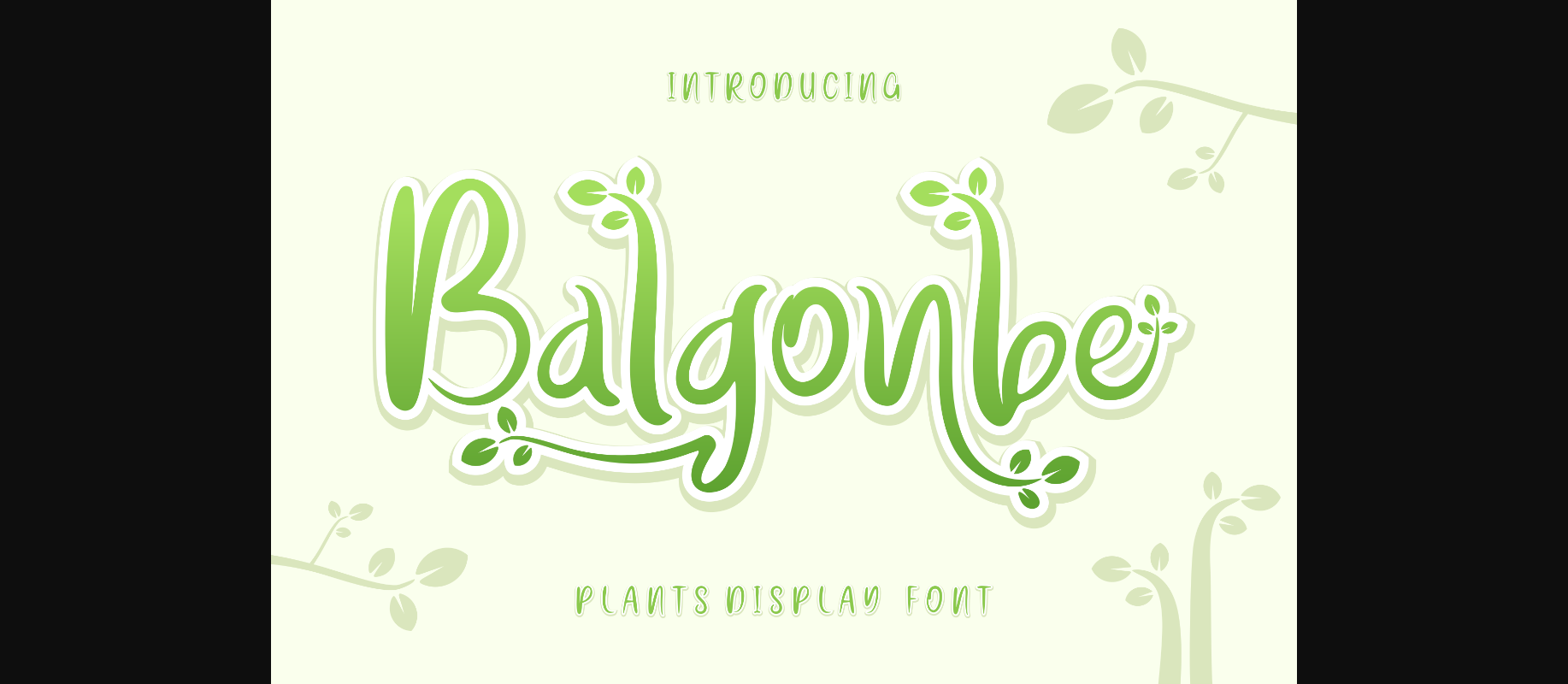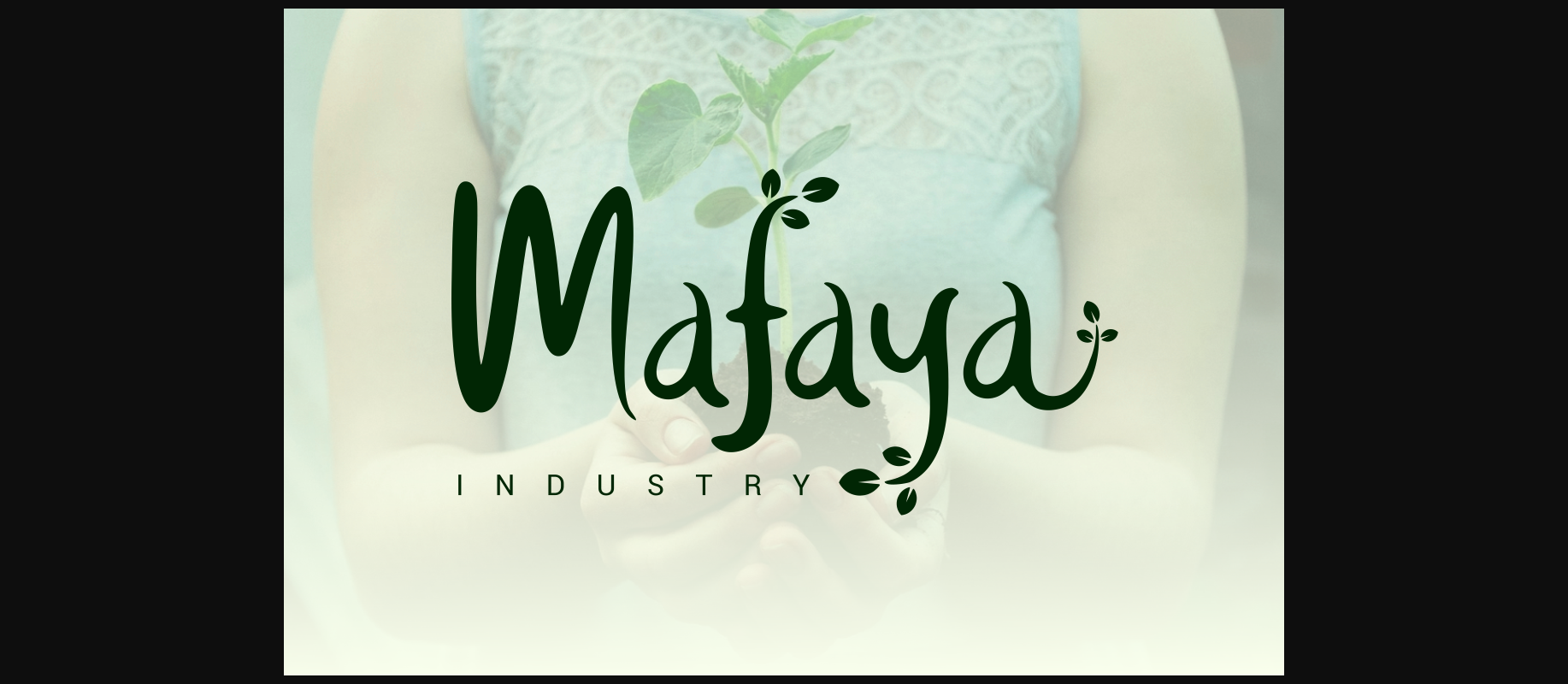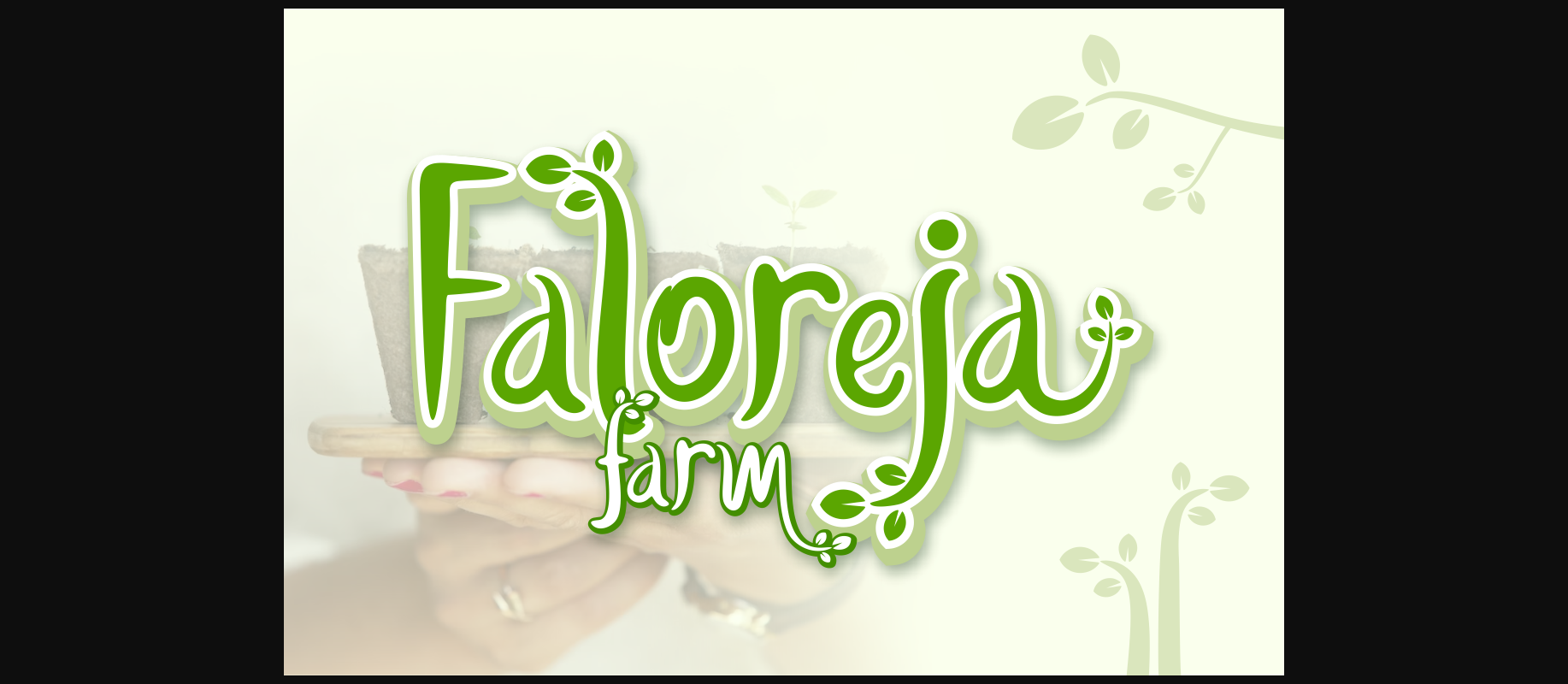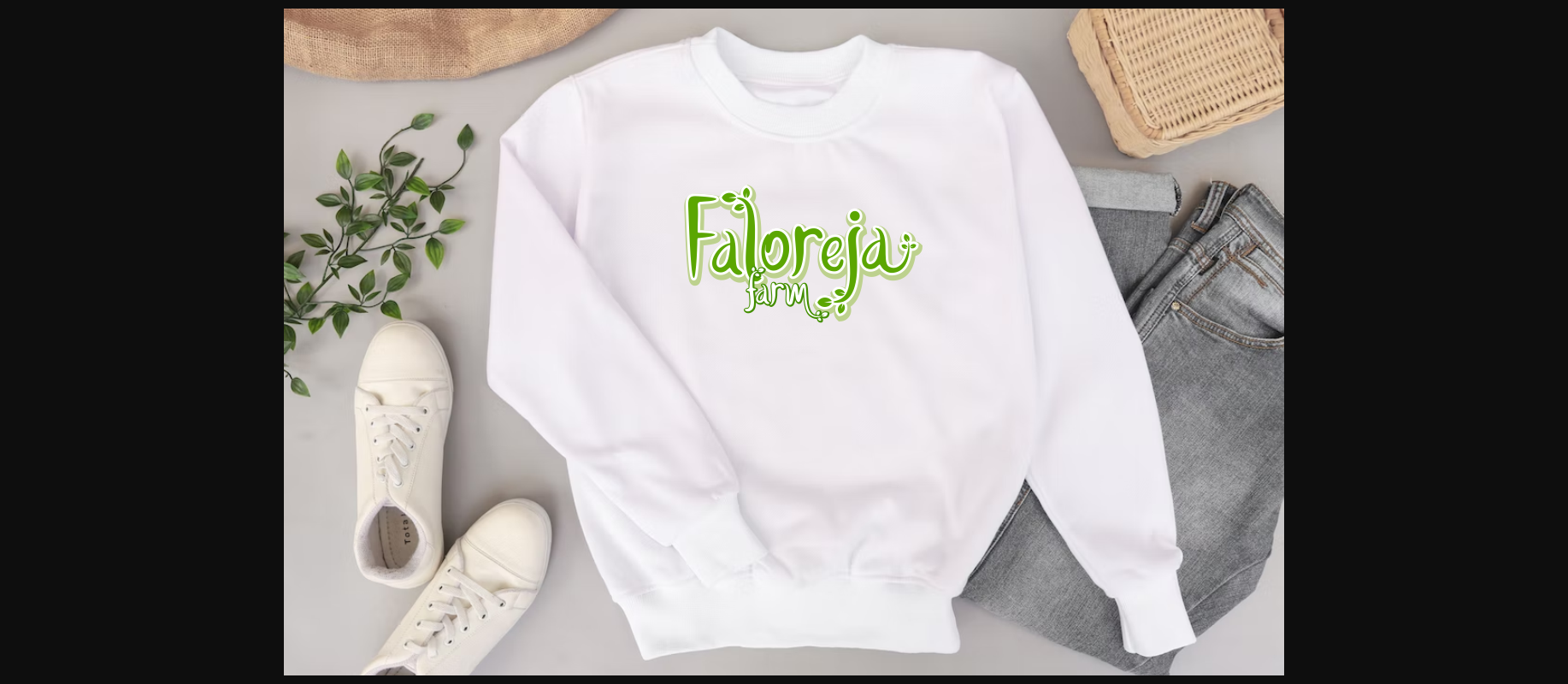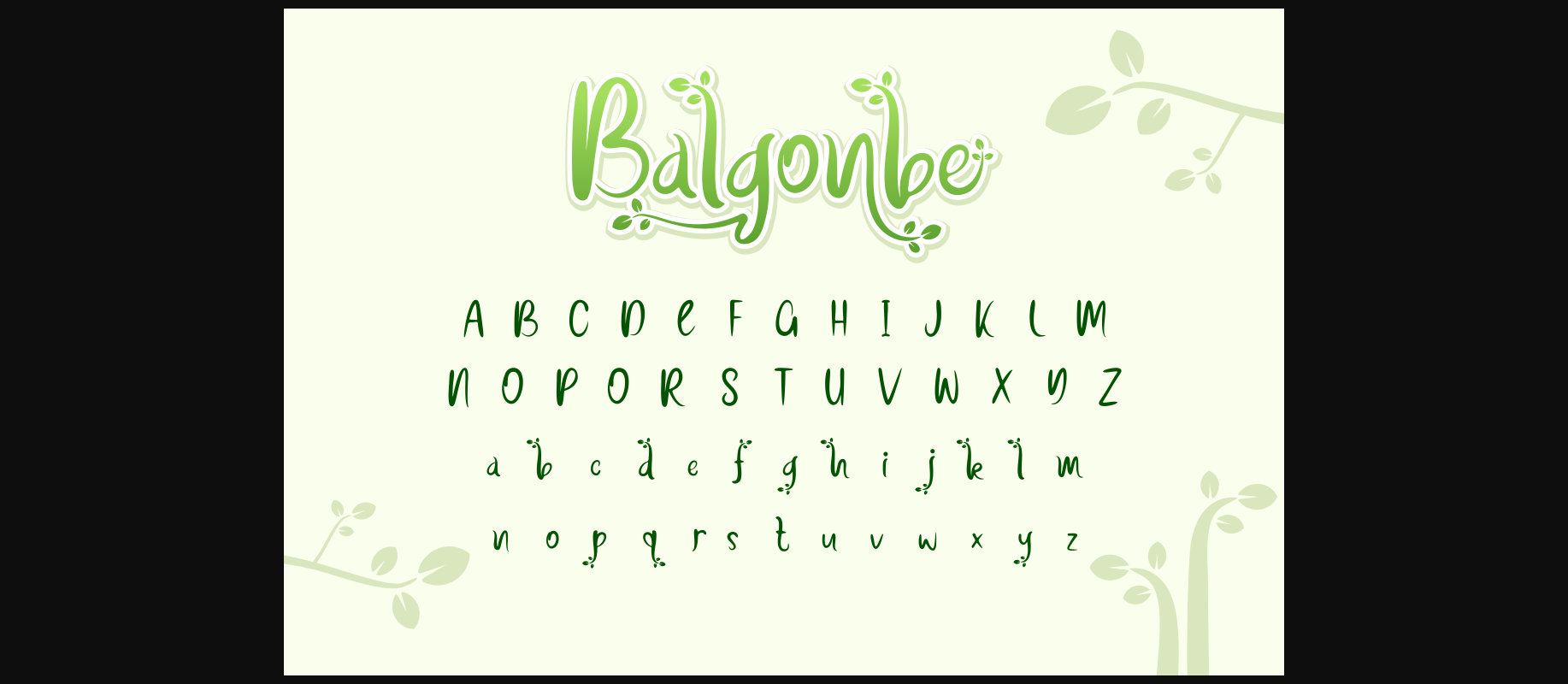
About Balgonbe Font
Introducing Balgonbe, a stunning decorative script font inspired by nature. Its intricate lines and curves create a botanical feel that is perfect for any project requiring a touch of elegance. Balgonbe features decorative flourishes and swashes, making it a versatile font for invitations, logos, branding, and more. Its unique style is sure to captivate and add a touch of sophistication to any design.